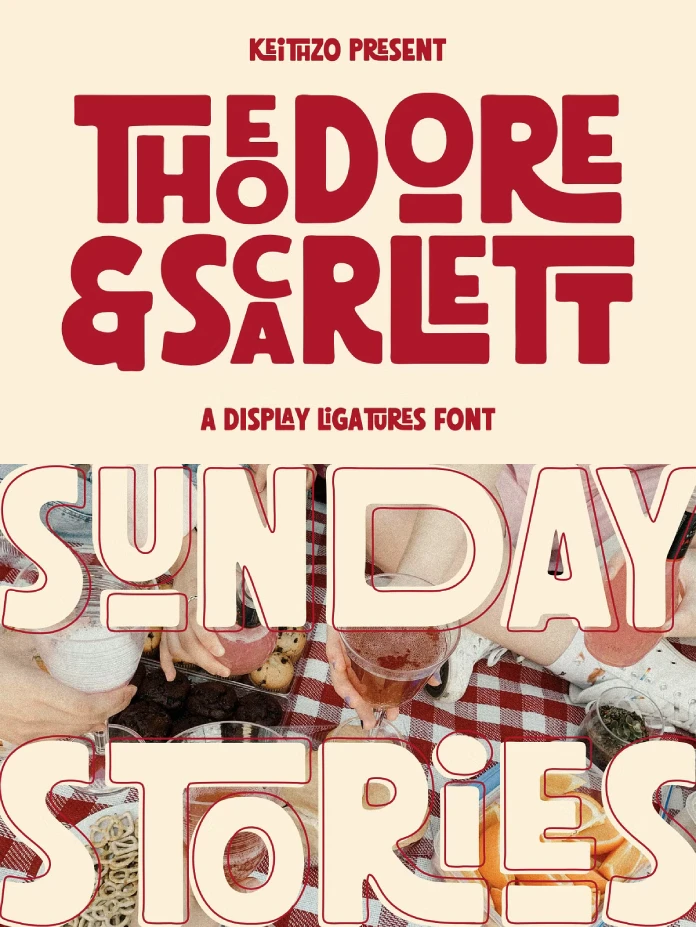
I first noticed the Theodore and Scarlett font through a Creative Market notification I almost swiped away. But happily, I didn’t. Something about the thumbnail—those thick, blocky letters wearing rounded corners like a leather jacket with soft lapels—made me stop scrolling. So I bought it, tested it against six real client briefs, and I’m going to walk you through exactly what a Theodore and Scarlett font review needs to tell you.
This isn’t a spec sheet copied from the product page. I built mockups, stress-tested the ligature system, and compared it against three other bold display fonts I already use for branding work. Some of what I found will save you time. Some of it will save you from a very specific kind of design regret.
What Type of Font Is Theodore and Scarlett?
Theodore and Scarlett is a bold display ligature font from type designer Keithzo, sold on both Creative Market and Creative Fabrica. It pairs heavy, chunky letterforms with a modern retro attitude, the kind of look you’d expect on a 1970s diner sign redrawn by someone who grew up on Instagram-type accounts.
The real story here is the ligature engine. Smaller characters nest inside or stack beneath dominant letters, so a word like “Scarlett” doesn’t read as six separate glyphs bolted together. It reads like a single custom lockup, the kind a lettering artist would charge you four hundred dollars to hand draw.
That’s the pitch, anyway. Pitches are cheap. Testing is where fonts either earn their price tag or expose themselves as a pretty demo image and not much else.
My Testing Framework: The Ligature Payload Score
I need a way to talk about ligature fonts that goes beyond “it looks cool in the preview.” So here’s a framework I built specifically for evaluating fonts like this one, and I’ll be using it going forward for every ligature-heavy display typeface I review.
I call it the Ligature Payload Score, or LPS. It rates a font on three axes:
Functional Density. How many of the included ligatures actually solve a real spacing or composition problem versus how many exist purely for the demo screenshot?
Baseline Confidence. How the font performs when you strip the ligatures away and just type it straight, no OpenType tricks, no manual kerning. A font with low baseline confidence is a font that only looks good in the hands of its own designer.
Stack Depth. How many characters can realistically nest before the composition collapses into visual noise? Two-letter stacks are easy. Four-letter stacks separate the toys from the tools.
Theodore and Scarlett scores high on Functional Density and Stack Depth. It’s more uneven on Baseline Confidence, and I’ll explain exactly why in a minute.
How the Ligatures Actually Perform Under Pressure
I typed out about forty words and short phrases, everything from single names to full product taglines, and let the OpenType features do their job in Illustrator and in Photoshop. The interlocking system genuinely works. Letters like the lowercase “t” and “l” tuck under the crossbars of neighboring capitals in a way that feels intentional rather than accidental.
Where it gets interesting is with double letters. “Scarlett” itself, with its double T at the end, is basically the font’s own stress test, and it passes. The two T’s don’t just sit side by side; they interlock into a single unit that reads as one design decision instead of two repeated letters.
Compare that to a generic script or slab font trying to fake the same effect with manual tracking adjustments. You’d spend twenty minutes nudging kerning pairs to get something that looks half as convincing. Theodore and Scarlett gets you there with a single keystroke and the right OpenType panel toggled on.
I did run into friction with longer words, six letters and up. The nesting logic starts making decisions you didn’t ask for, and some combinations produce a slightly cramped middle section. Nothing broken, just something you’ll want to eyeball before locking a final file.
Where This Font Actually Belongs in Real Projects
A font this loud isn’t a body copy font, and nobody’s pretending it is. The real question for a bold display font is where its ceiling sits. Here’s where I found Theodore and Scarlett genuinely earning its keep.
Logotypes and Wordmarks
This is the sweet spot. Short brand names, especially ones with repeated letters or interesting letter pairs, benefit the most from the ligature system. I mocked up a fictional coffee brand called “Rally” and the double L stack alone looked more custom than most agencies deliver for five figures.
Packaging and Product Labels
A bold, chunky display type reads well at a distance, which matters on a shelf. I tested it on a mock hot sauce label and a candle jar comp. Both held up at small print sizes better than I expected from a font this heavy.
Quick Summary
Theodore and Scarlett is a bold, modern retro display font from Keithzo built around a genuinely functional nested ligature system. It shines on short wordmarks, packaging headlines, and merch design, and it struggles at small sizes and with extended language support. If you build brand identities or logotypes on a regular basis, it earns a spot in your library.